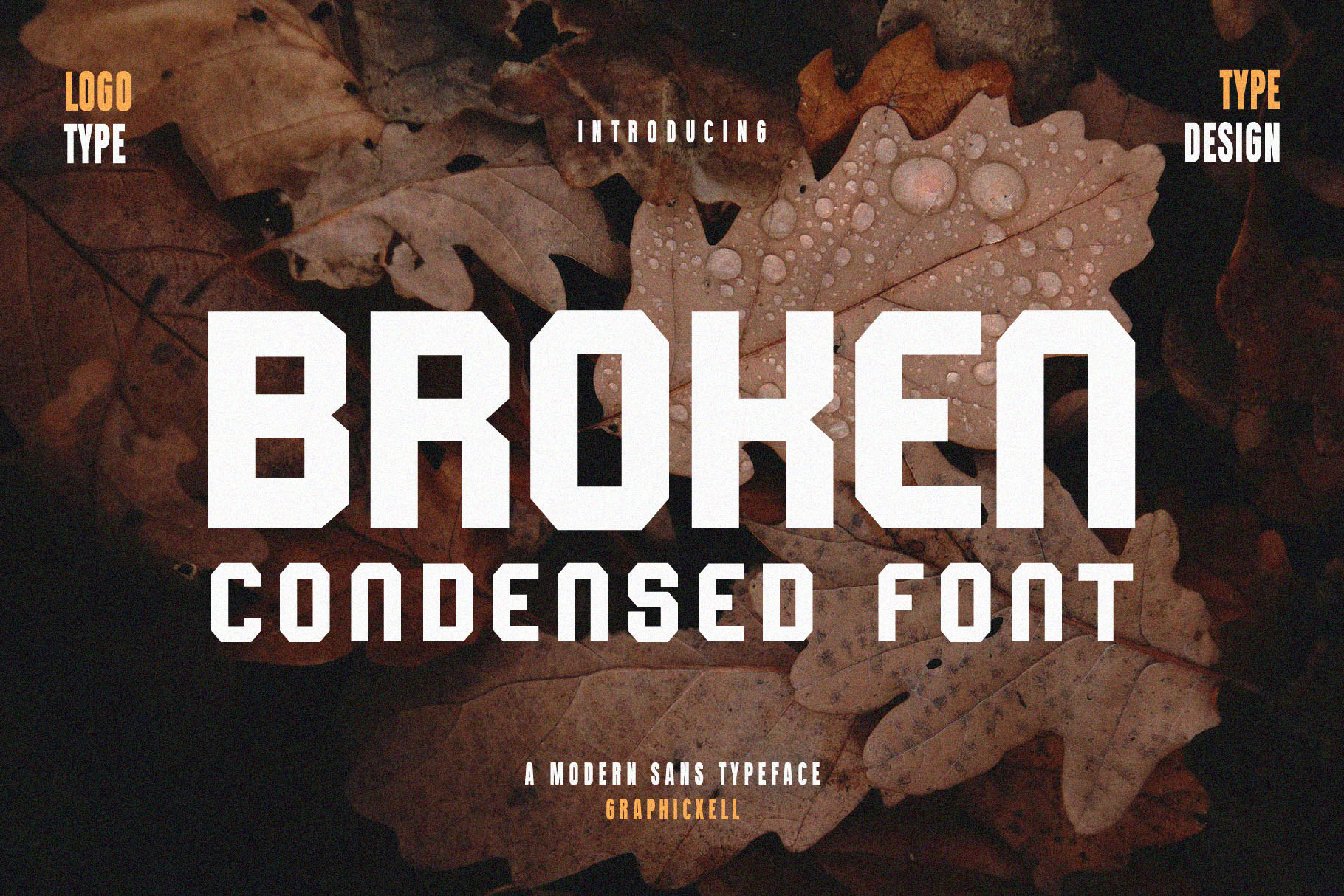
Broken Condensed Sans Serif Font
Broken Condensed Sans Serif Font inspired by the famous minimalist logo perfect for the purposes of designing templates, brochures, videos, advertising branding, logos, invitation, layout design, elegant crafting, beauty design and more.